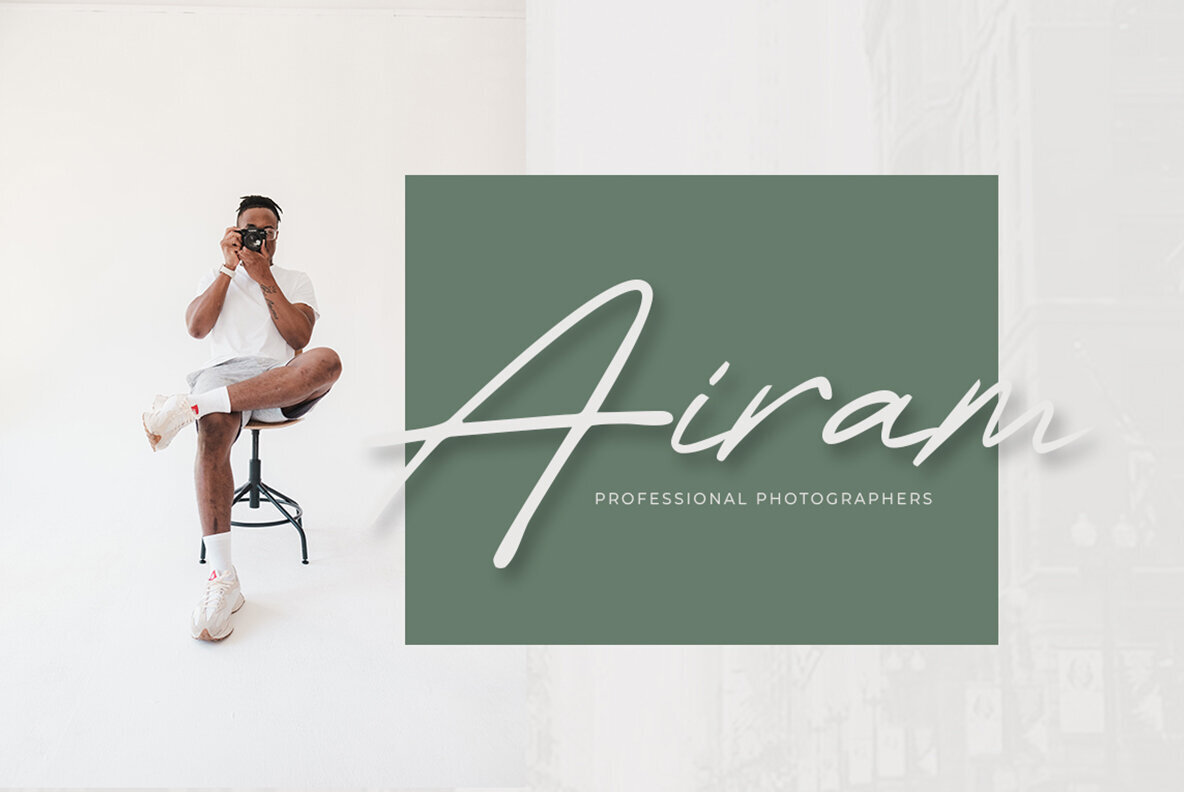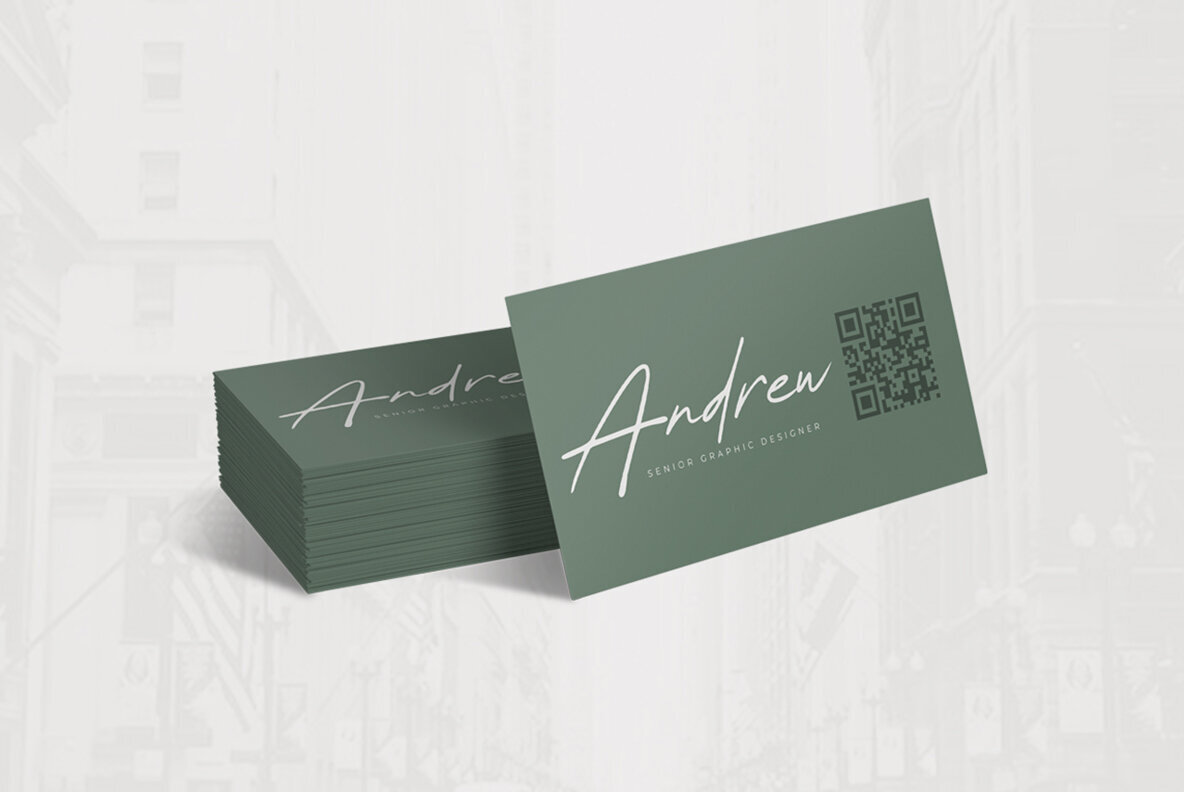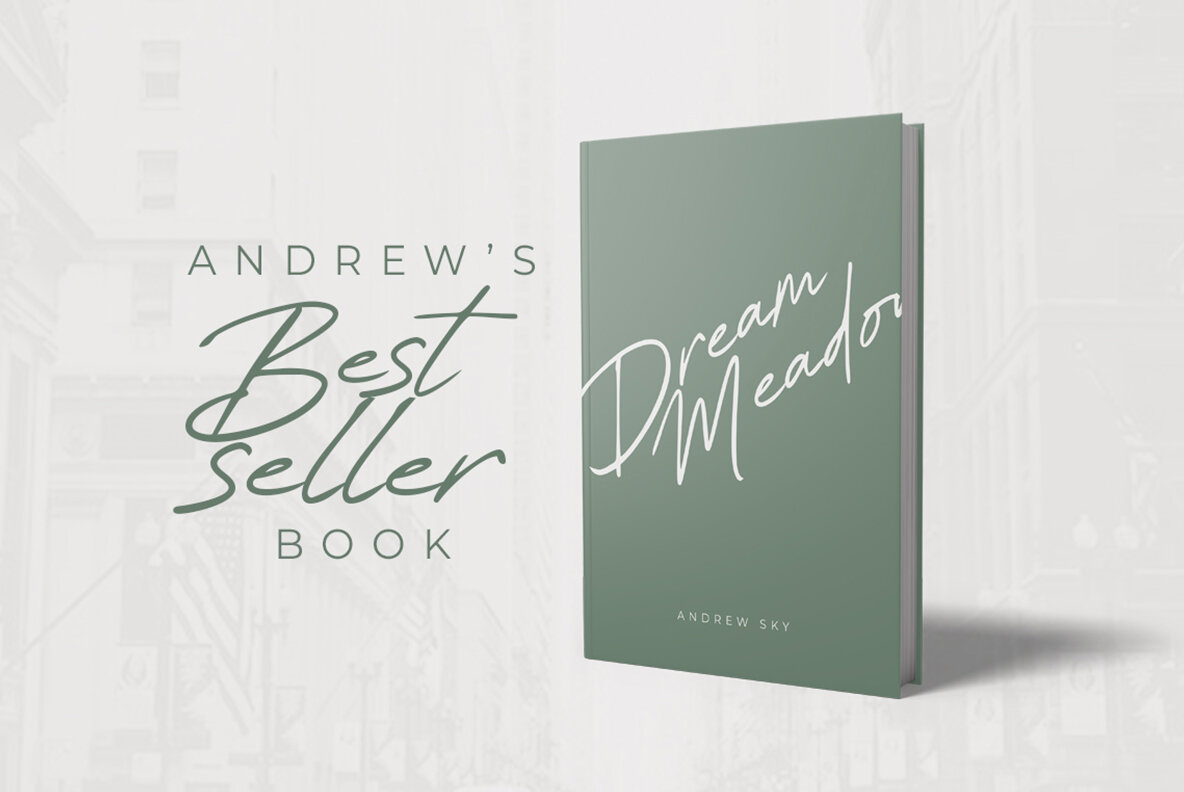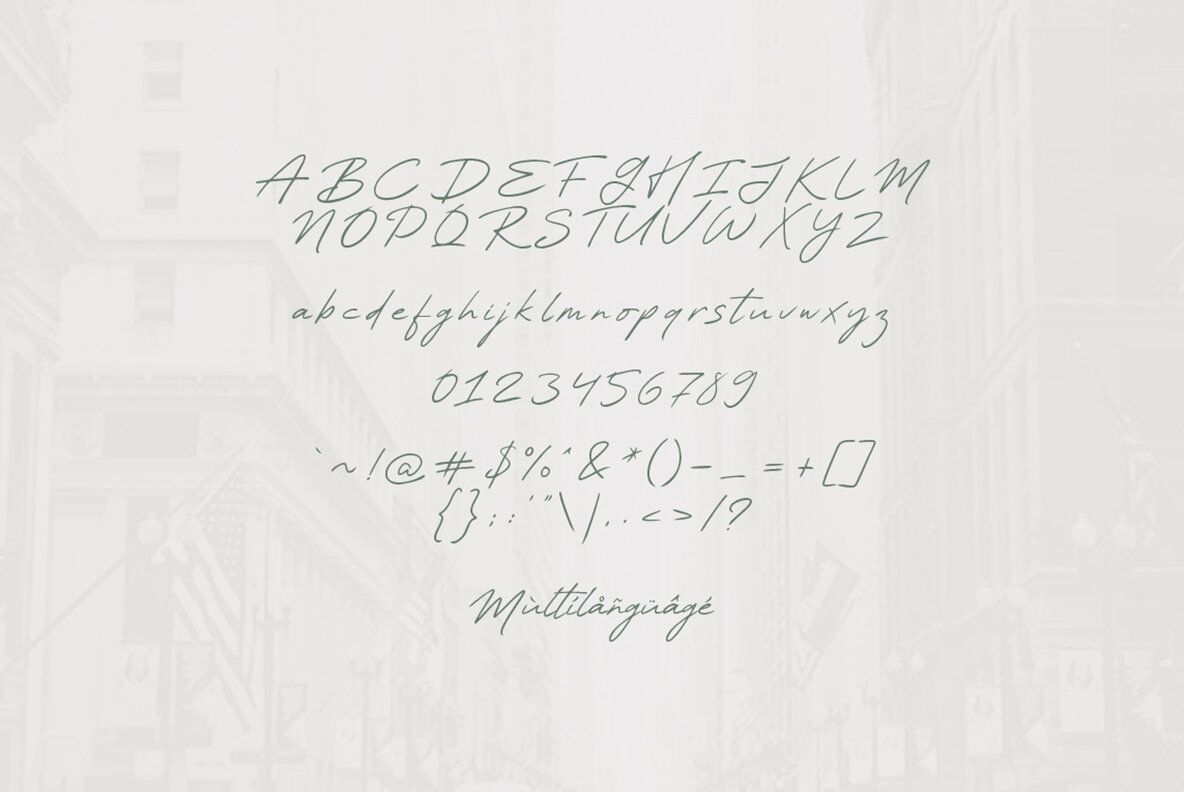
Kind Regard Font
Kind Regards
The Kind Regard is a fresh script font, elegant and modern feel character set. The Kind Regard font as well as multi-lingual support, uppercase, lowercase, numerals, & punctuation.